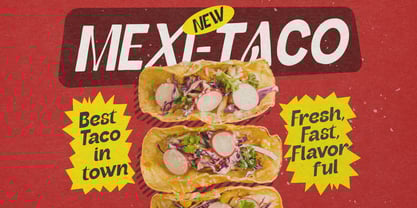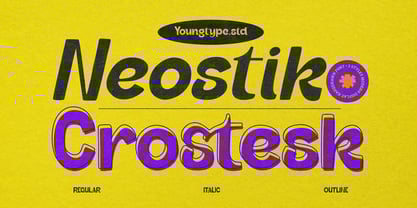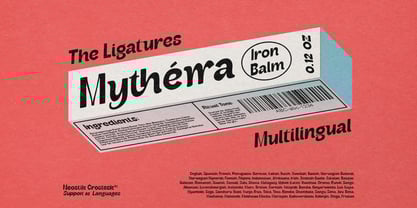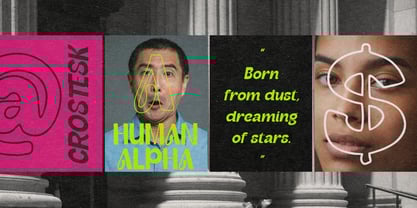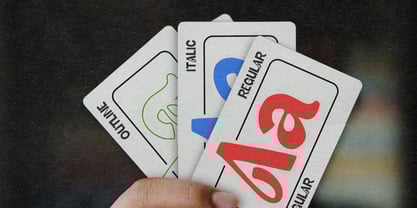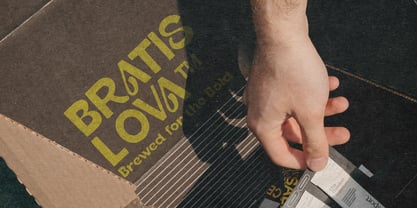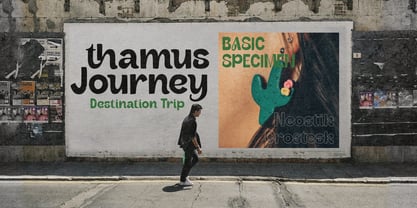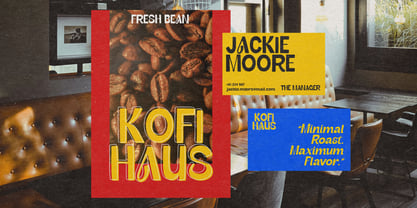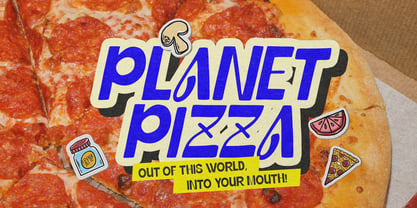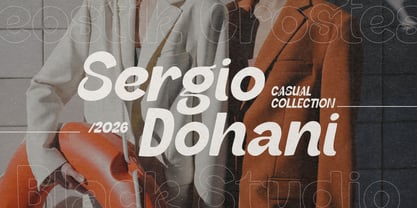
Neostick Crosteks
The Neostick Crosteks Font Family was designed by Naufal Paramata and published by Youngtype. Neostick Crosteks contains 3 styles and family package options. More about this family
Neostik Crostesk is a modern, hand-drawn display font family designed by Youngtype.std. It comes in three unique styles — Regular, Italic, and Outline — offering versatility for creative design projects. The font combines a bold, rounded sans-serif look with a playful and artistic touch, making it ideal for posters, headlines, branding, and editorial layouts. The Regular style is clean and solid, Italic adds a dynamic slant for emphasis, and Outline delivers a vibrant, outlined version perfect for eye-catching accents. Its handcrafted character and friendly curves give it a distinctive personality that stands out in modern and retro-inspired designs.
Contains full set :
• Uppercase
• Lowercase
• Ligatures
• Alternates
• Punctuation
• number
• multilingual support.